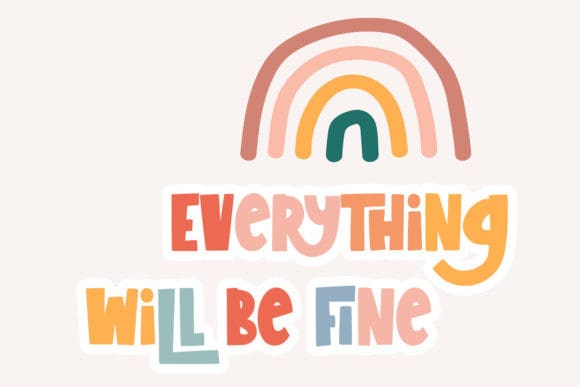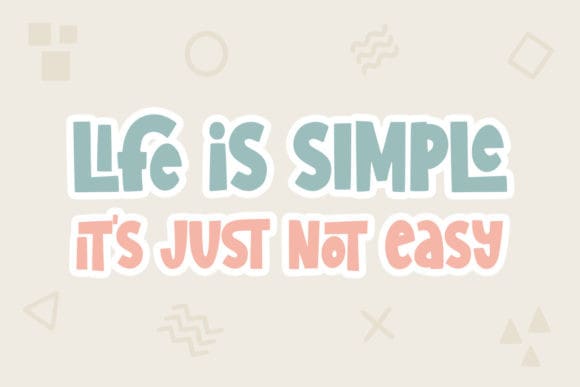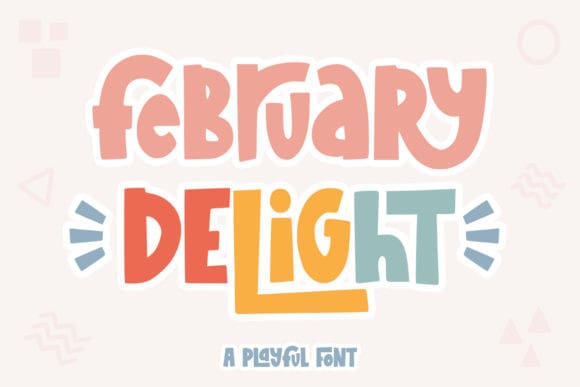
February Delight Font
February Delight Font is a playful and fun display font that is completed with unique ligatures.
It is great for t-shirt designs, quotes, mugs, tote bag designs, cards, banners, social media, and anything of craft projects.